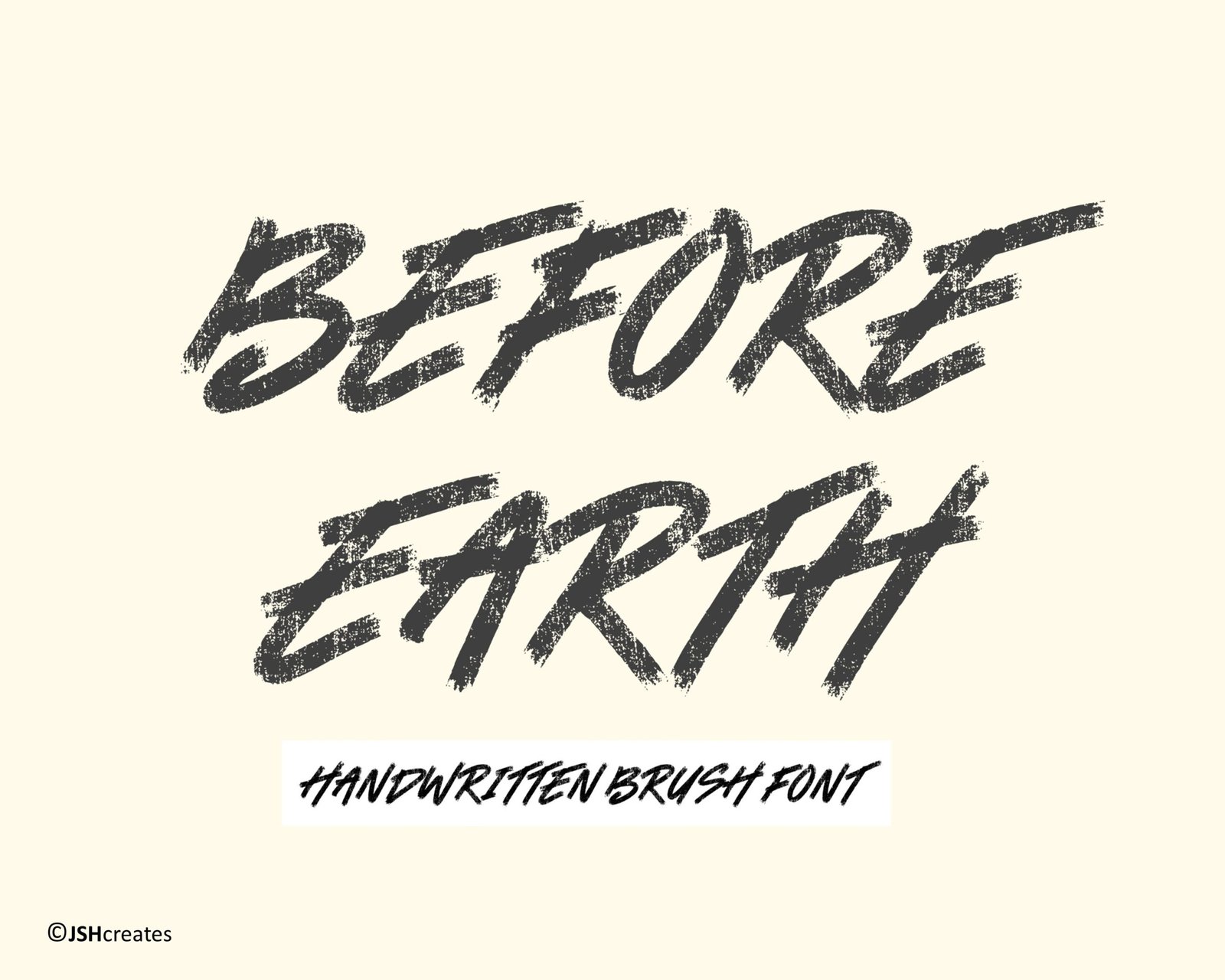
Before Earth Font
Handwritten brush font. “Before Earth”. Perfect for advertising and display purposes, including banners, book covers, shirts, posters, logos and much more!